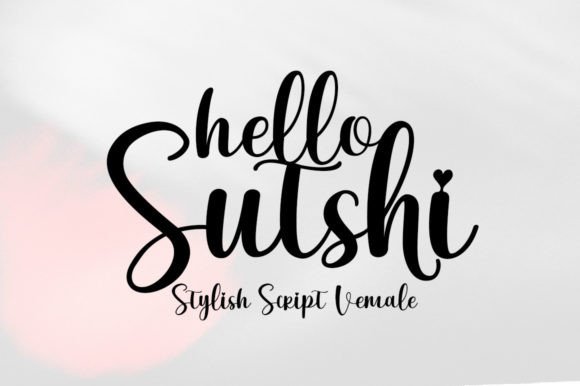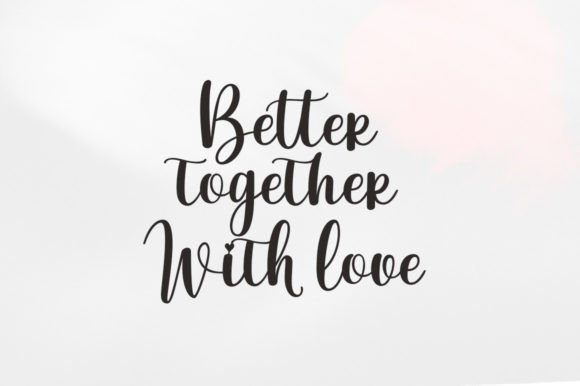
Hello Sutshy was inspired by cake shop products. It is a unique script font derived from original handwriting.
This beautiful typeface is a great choice for New Year’s projects, products, crafts, invitations, and personalization.